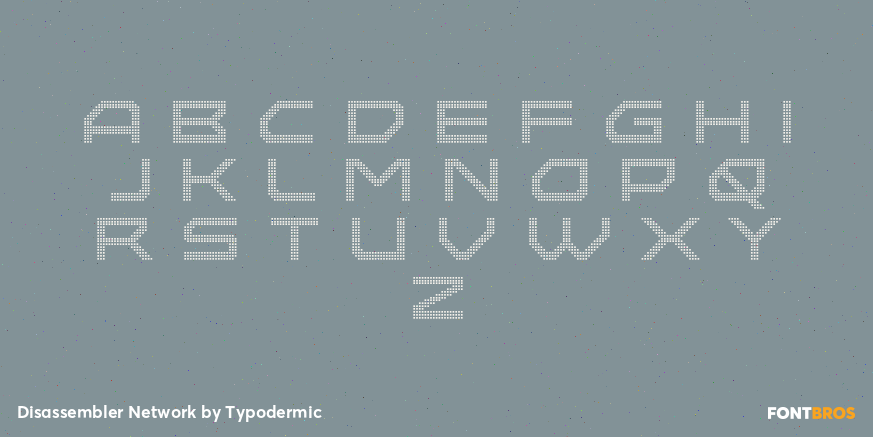
Disassembler Network
Buy NowDisassembler Network makes the pixel alphabet read as a connected system rather than a field of isolated blocks. Its repeating structure suggests nodes, links, communications paths, and machine-to-machine exchange while retaining the family’s irregular engineered proportions.
Use Network for secure communications, autonomous fleets, distributed sensing, cybersecurity conferences, infrastructure monitoring, and technology launch graphics. In motion, the style can appear to connect, propagate, or resolve across a display; in print, it gives large titles a diagrammatic texture.